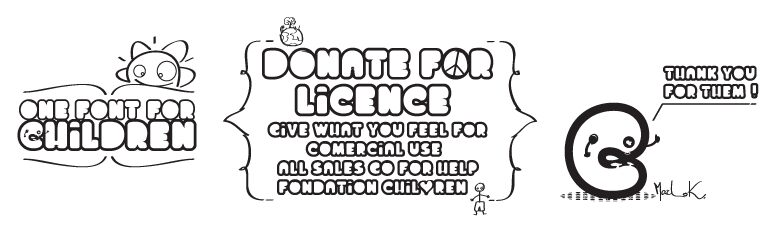
Chocolate Cake is a free groovy outlined display font with swollen letters and a lively 1970s cartoon flavor. Broad curves squeeze together, forming pinched joins and playful changes in width. The forms have an almost inflated look.
Icing-like shapes make the lettering part of cake illustrations across bakery packaging, dessert branding, and children's party posters. The rounded silhouette also suits cheerful retro cartoon graphics, echoing frosting, candy, and balloons.